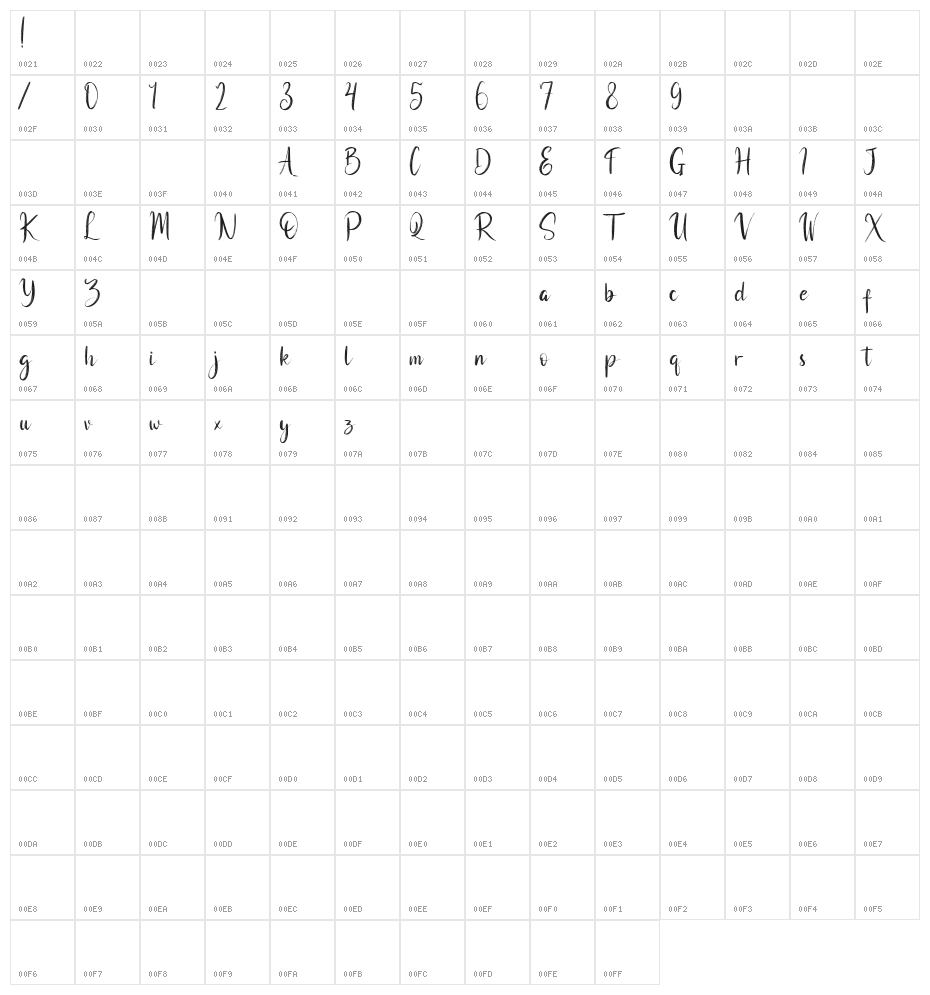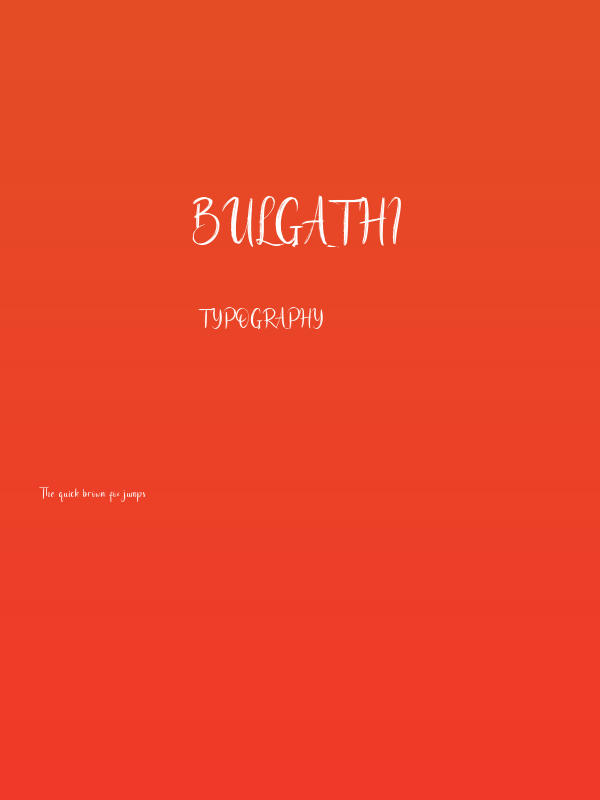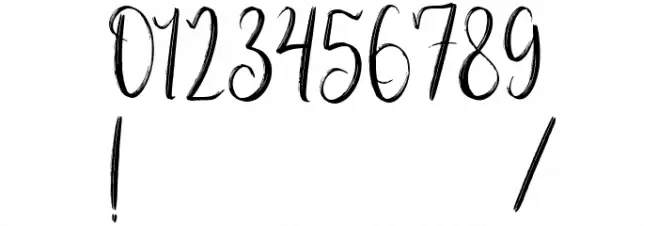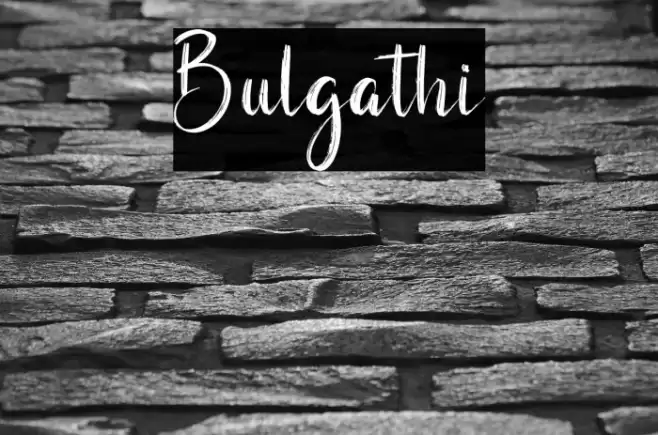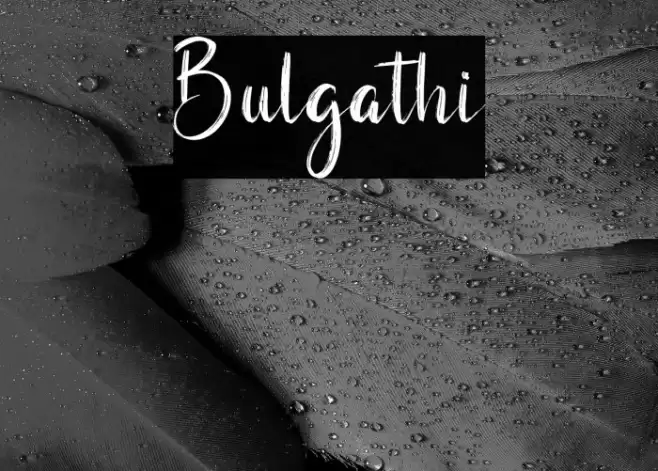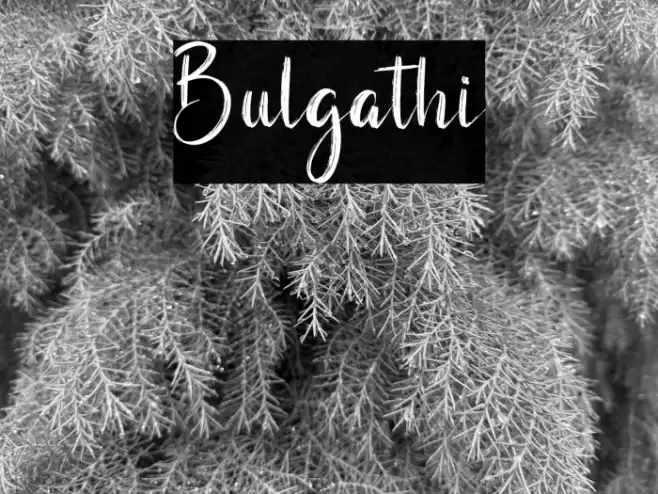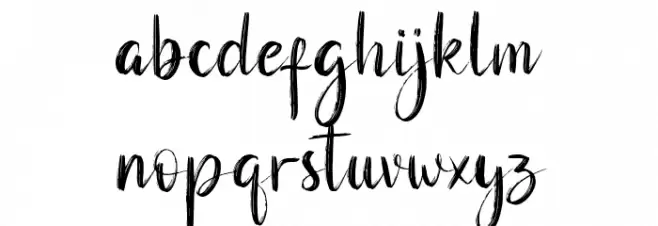
Bulgathi Font
Bulgathi Description
This font features a dynamic and expressive handwritten style, characterized by its fluid strokes and varying line thicknesses. The uppercase letters are bold and sweeping, with a sense of movement and flair, while the lowercase letters maintain a consistent flow with elegant loops and curves. The numerals are distinctive, maintaining the font's overall artistic feel. Special characters are crafted with the same attention to detail, adding to the font's versatility. The brush-like texture gives it a personal and artistic touch, making it suitable for creative projects.